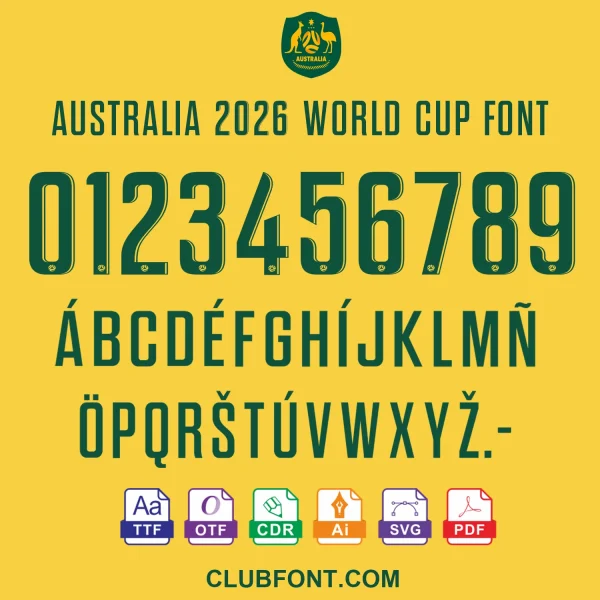
Australia 2026 World Cup Font Package
Elevate your design projects with the Australia 2026 World Cup Font. This fan-inspired typeface captures the spirit of the Socceroos, making it the perfect choice for supporters, designers, and sports apparel brands looking to browse our full range of international football fonts.
Whether you are customizing a soccer jersey, creating promotional banners, or designing fan merchandise, this font provides the exact look of the 2026 tournament aesthetics.